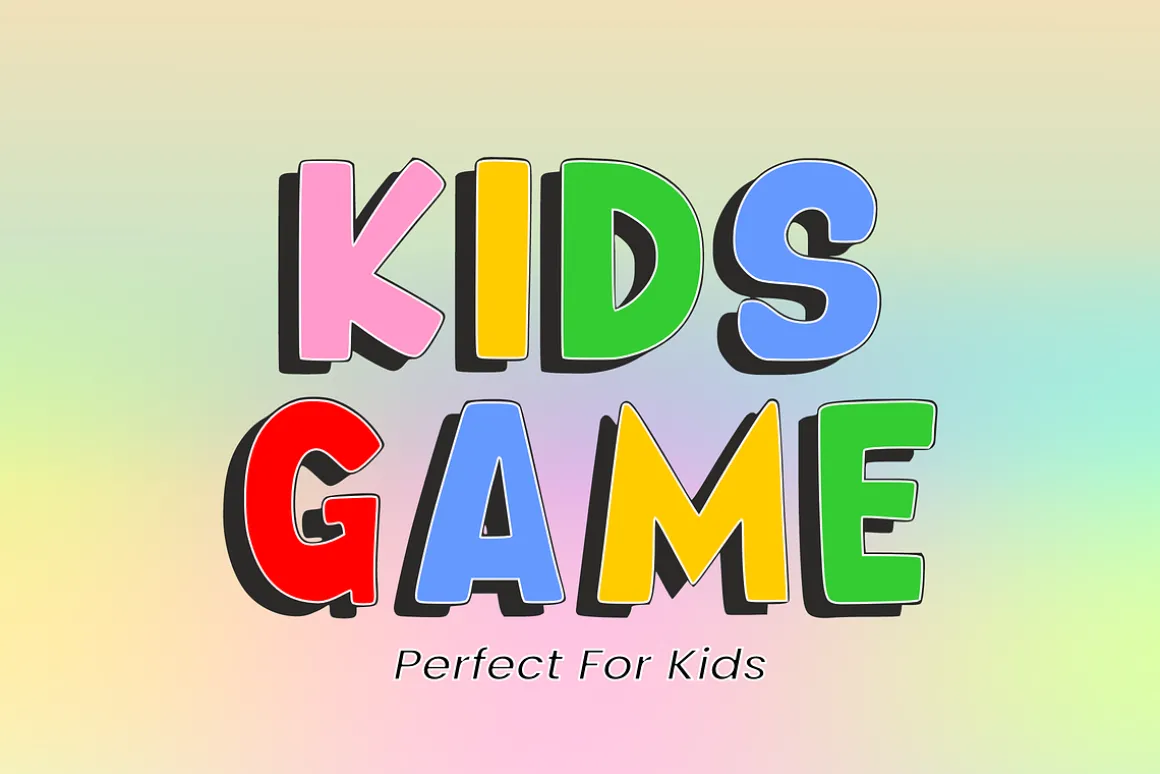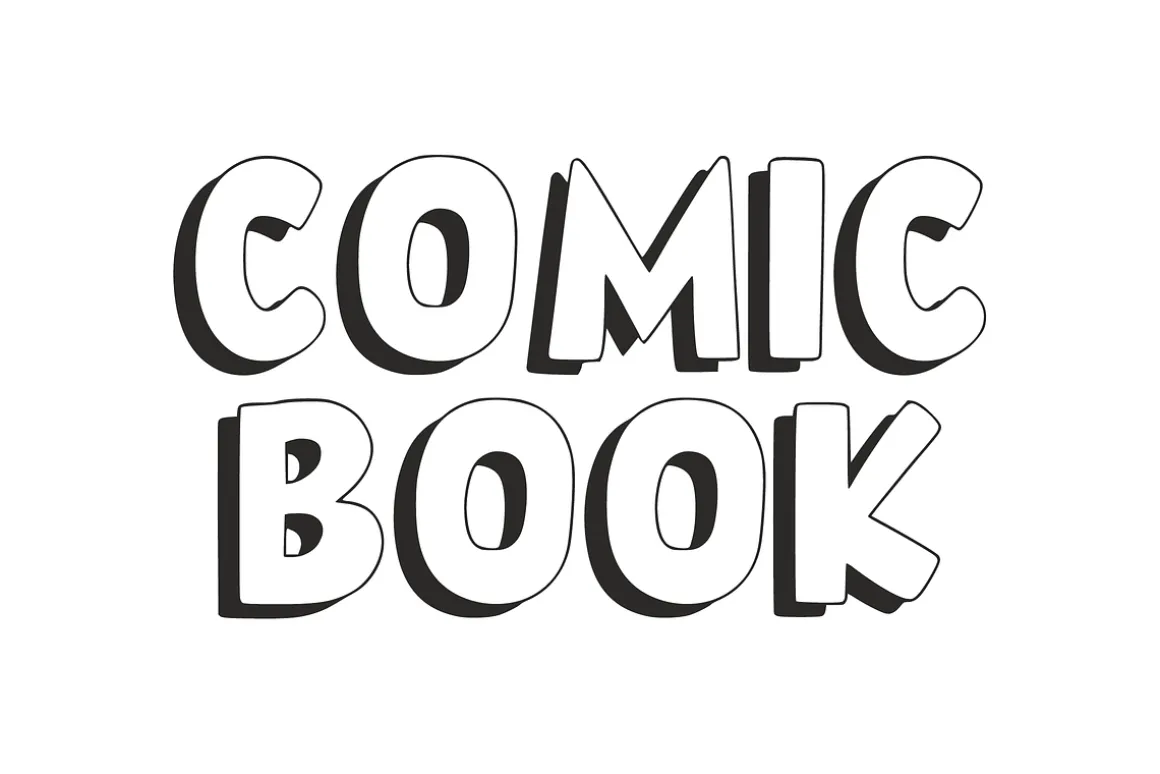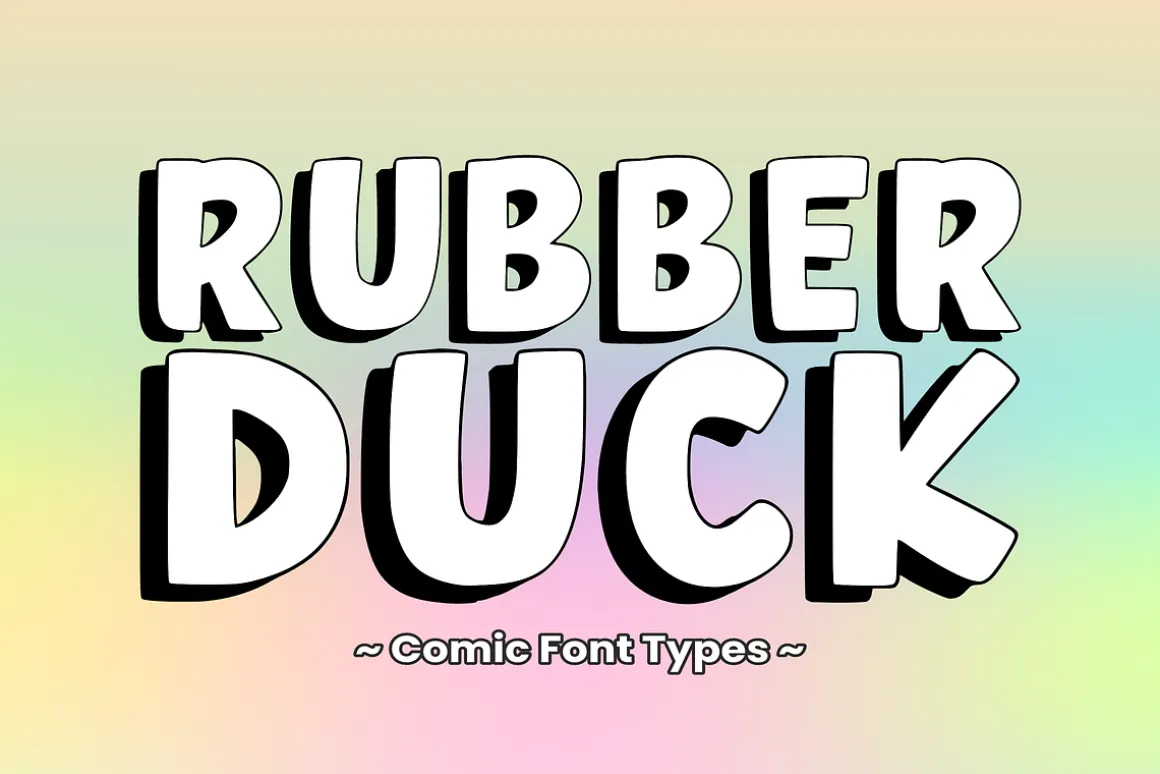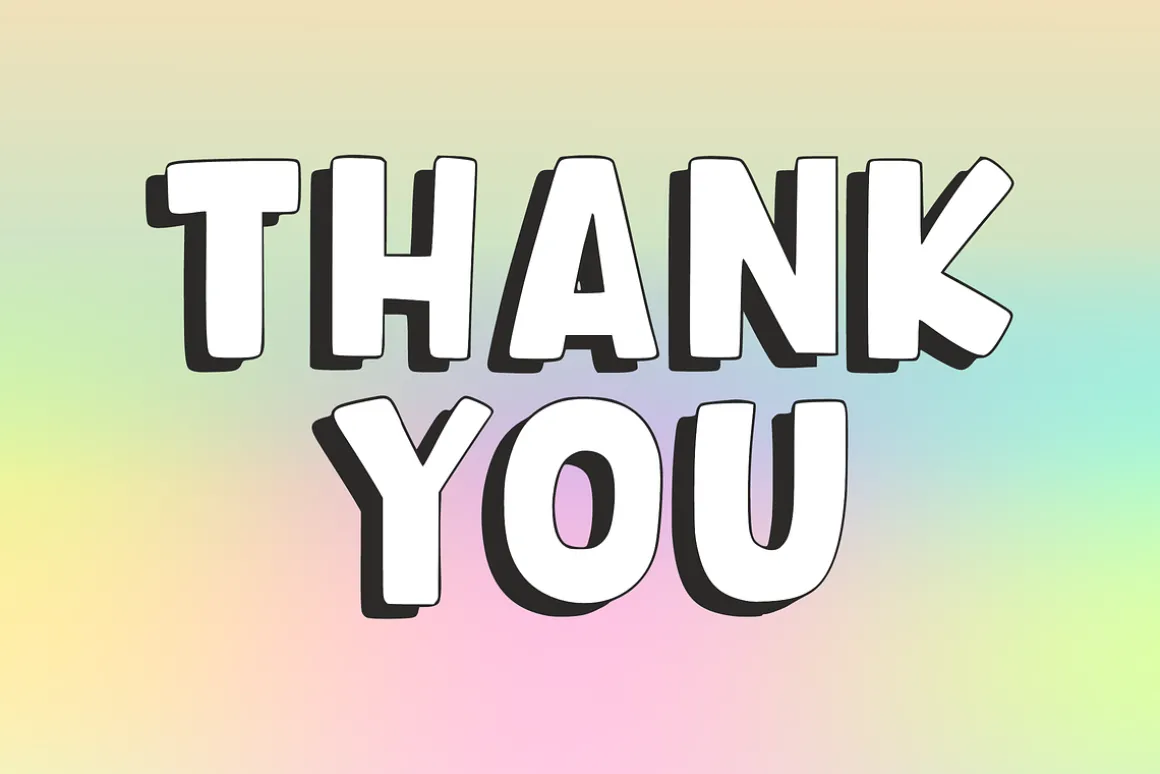
Bring a splash of playful, energetic fun to your next creative project with Rubber Duck! This ultra-chunky comic display font features bold, bouncy letterforms paired with a clean, striking 3D drop shadow effect. It’s the ultimate choice for giving your headlines, logos, and custom crafts a cheerful, animated pop that immediately grabs attention.
Whether you are designing custom sticker packs, bright classroom materials, or trendy kid-friendly merch, Rubber Duck beautifully combines a whimsical cartoon aesthetic with high-impact legibility. It is highly versatile, cuts exceptionally smooth on digital cutting machines like Cricut, and is fully optimized for all professional design programs.
All-Caps Character Set (Chunky, pillowy comic letters with a bold 3D shadow style)
Numbers & Simple Punctuation (Essential, clean handwritten symbols included)
Perfect For:
Kids’ Craft Projects, Kindergarten Branding, & Teacher Resources 🏫
Cricut, Silhouette, & DIY Fun Sublimation Craft Projects ✂️
Custom Die-Cut Stickers, Planners, Decals, & Fun Stationery 💖
Children’s Book Covers, Comic Book Titles, & School Event Posters 📚
Toddler Apparel Prints, Birthday Invites, & Playful Product Packaging 👕
High-Impact YouTube Thumbnails, Gaming Graphics, & Creative Vlogs 🎮